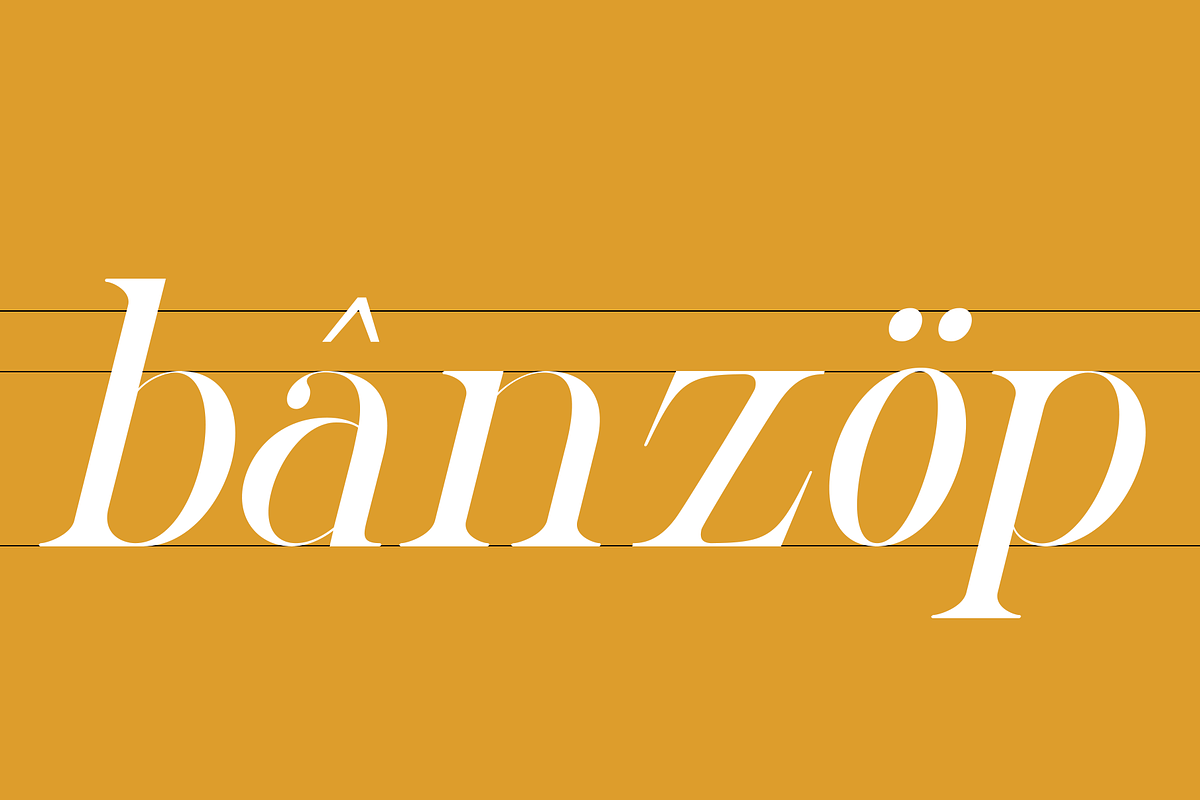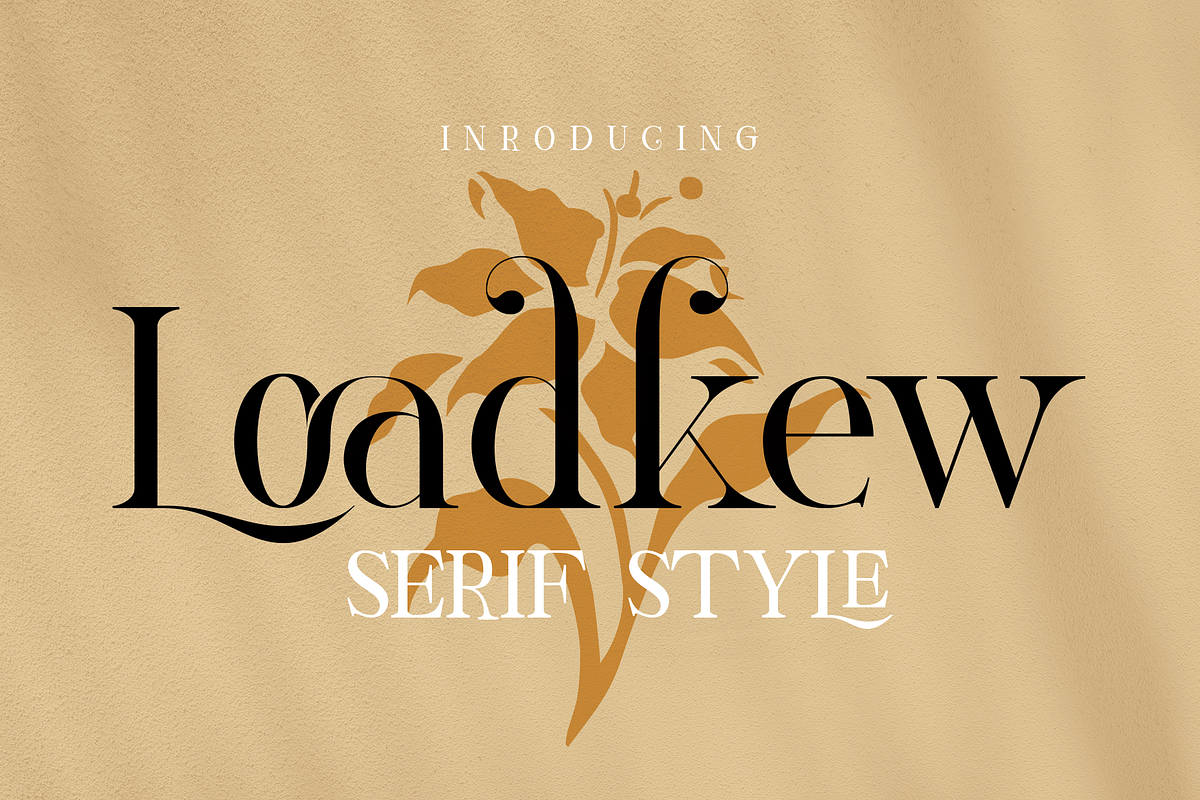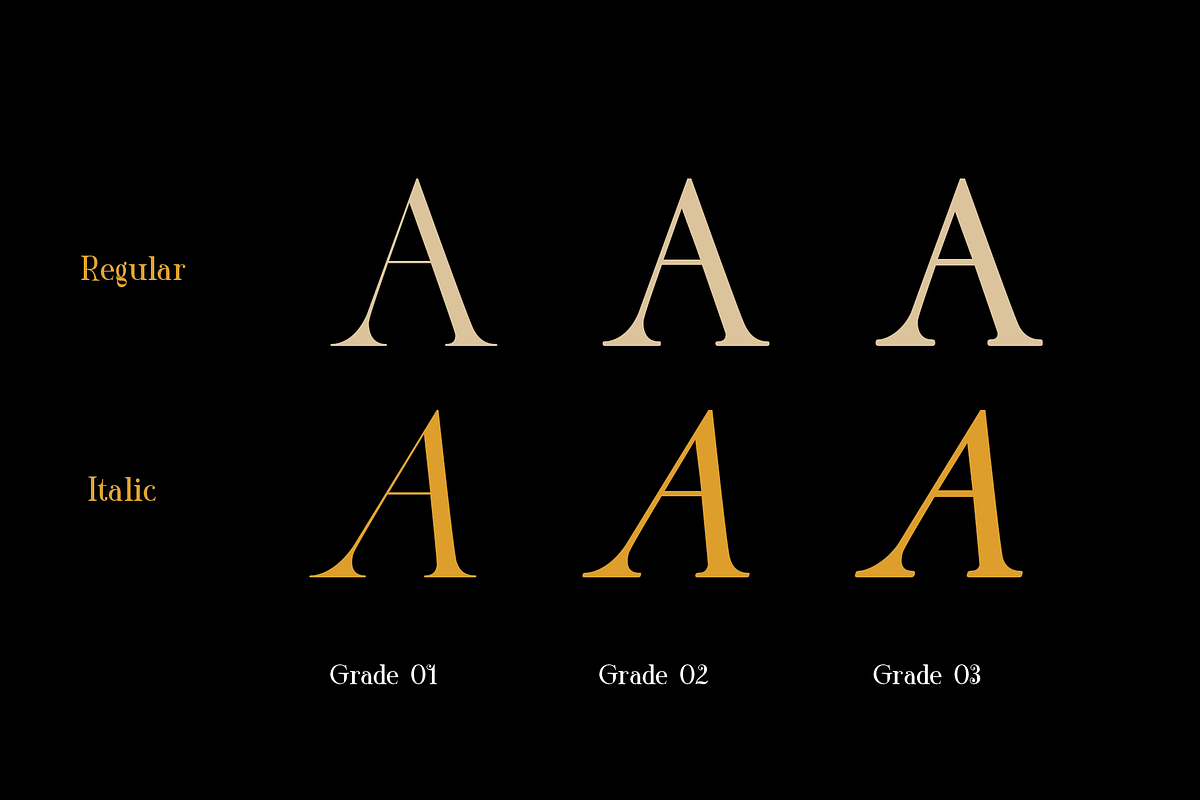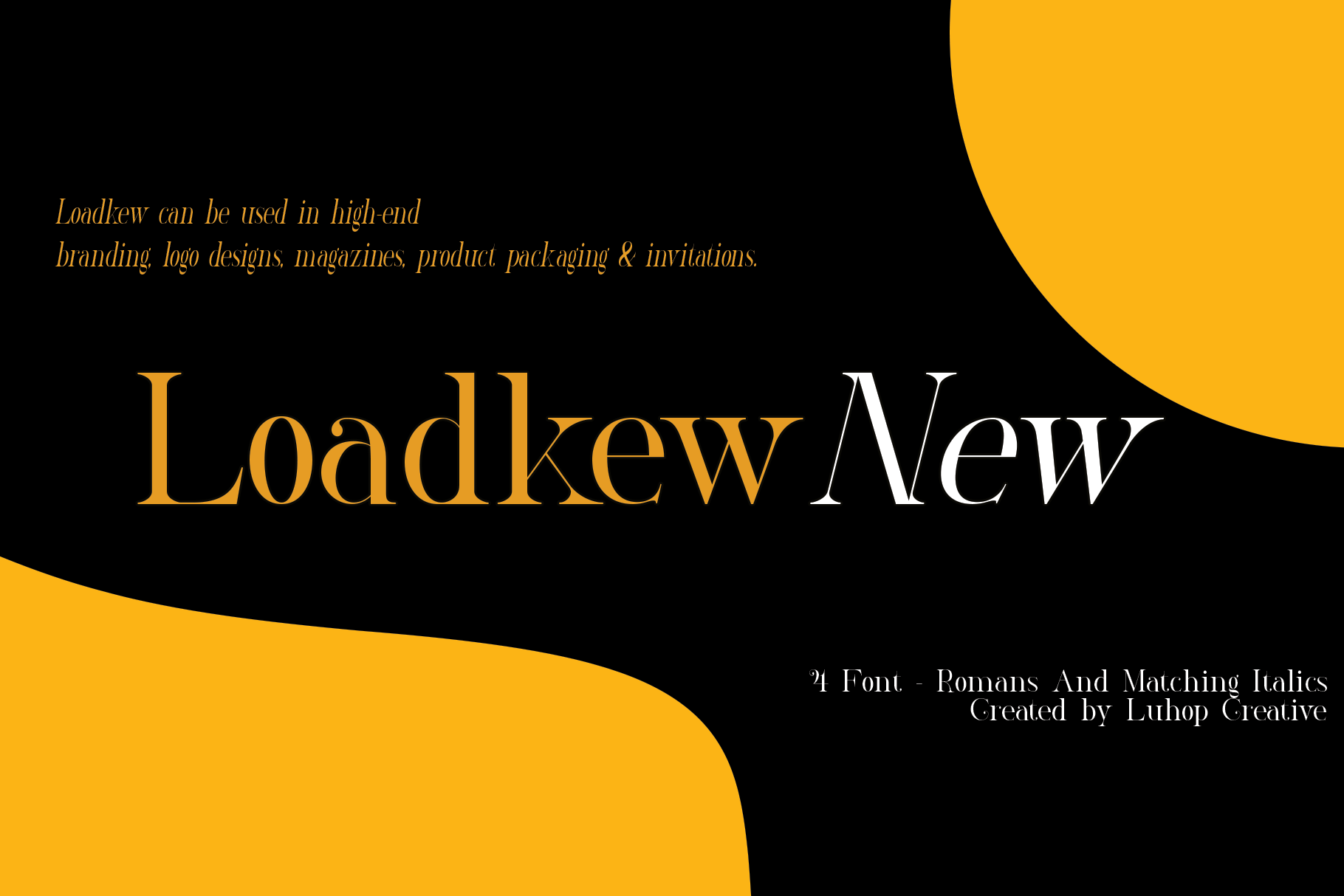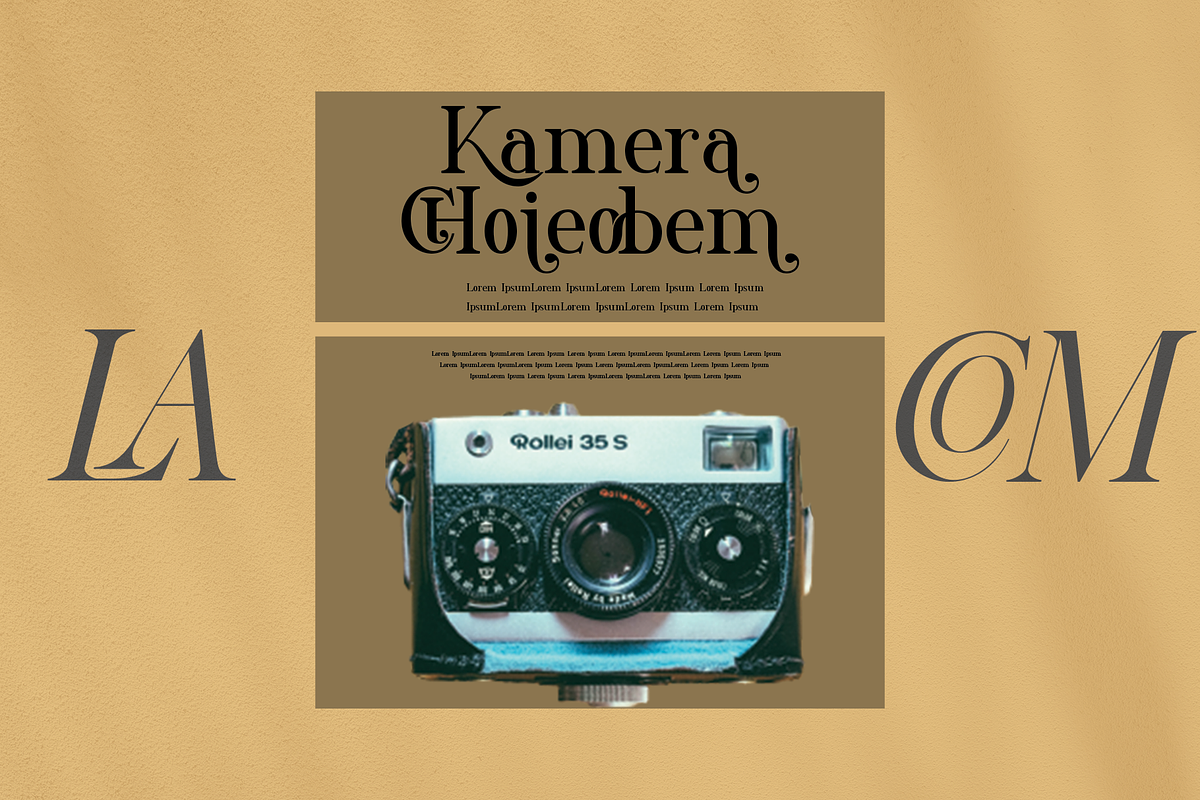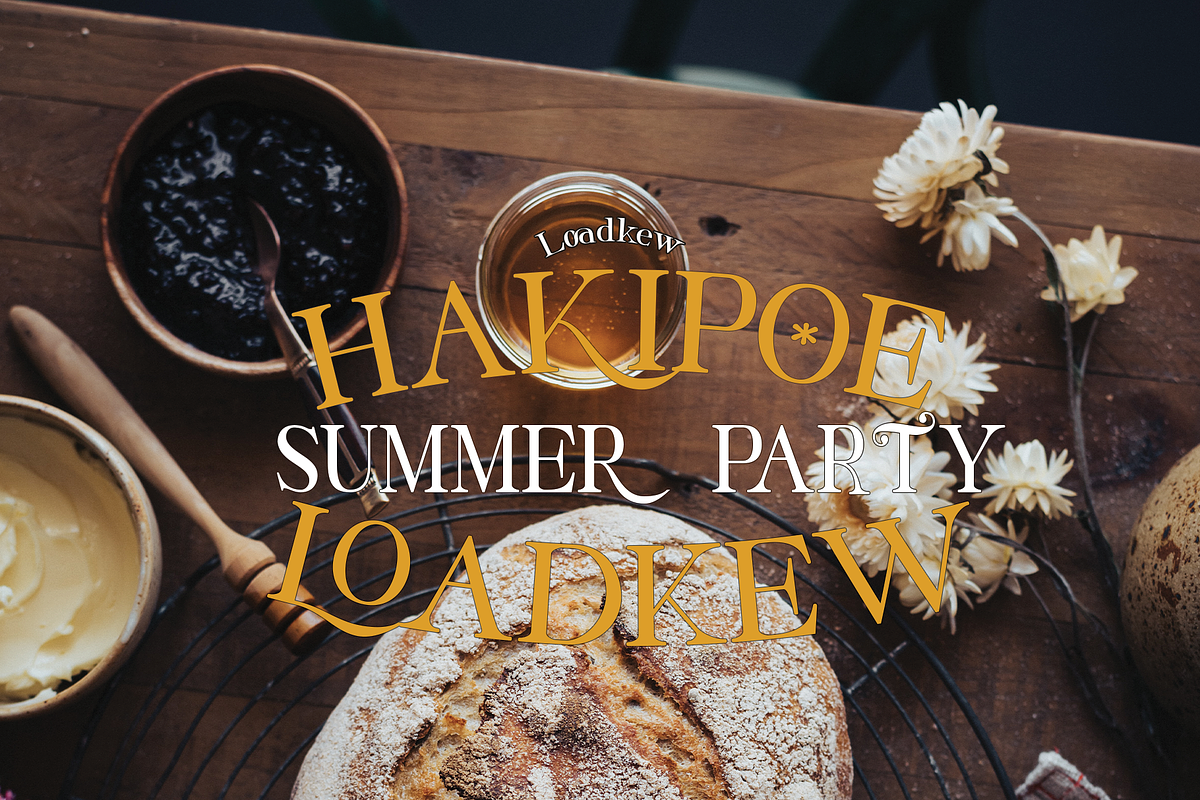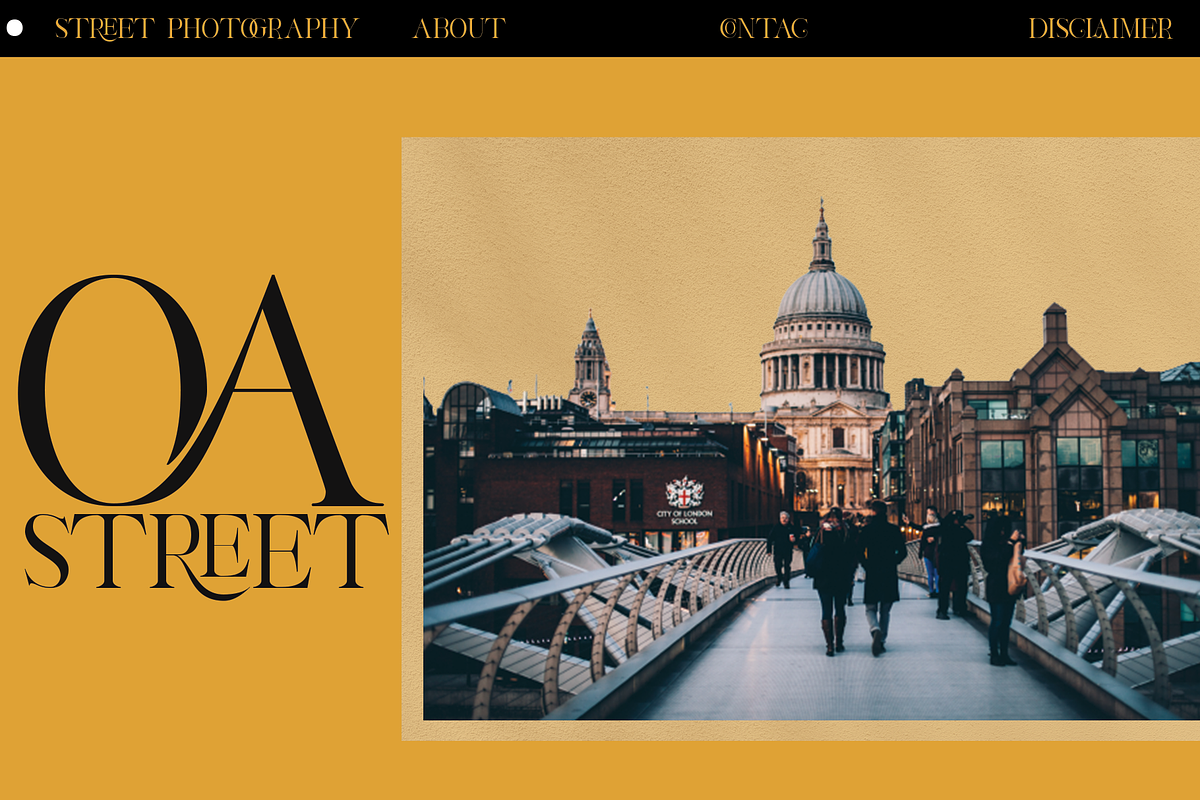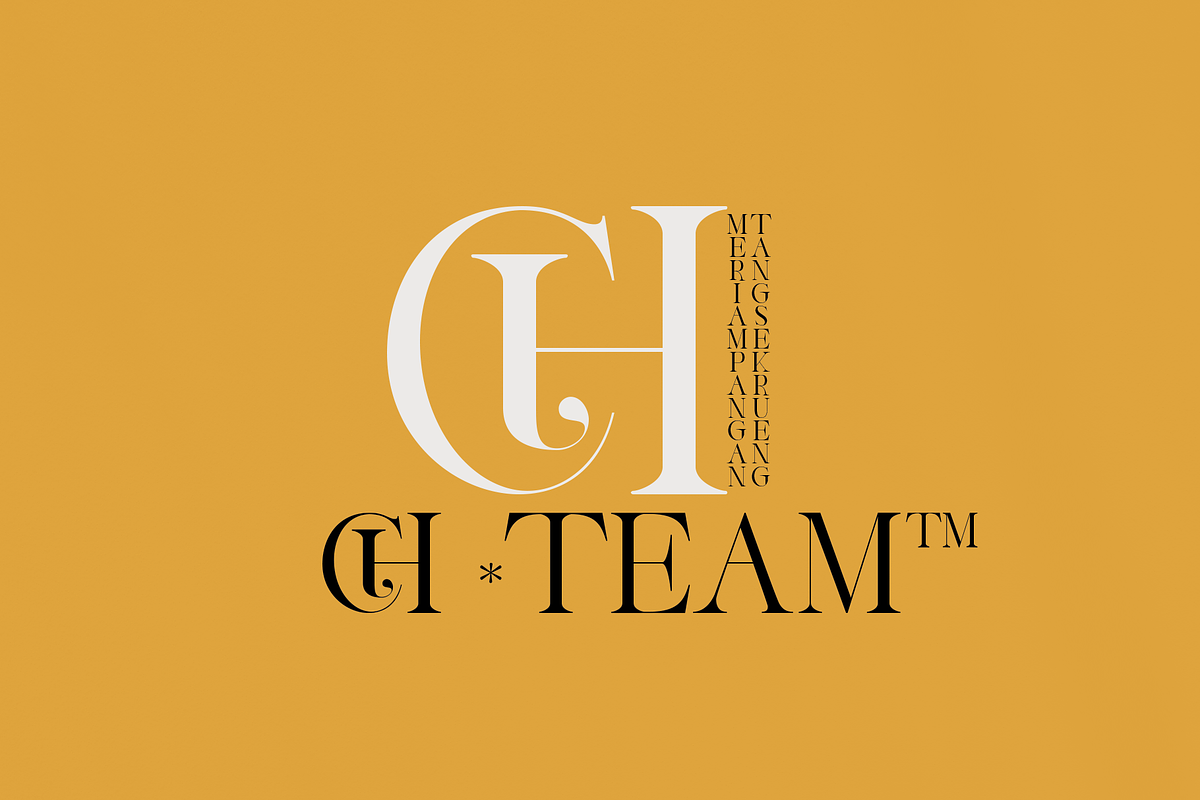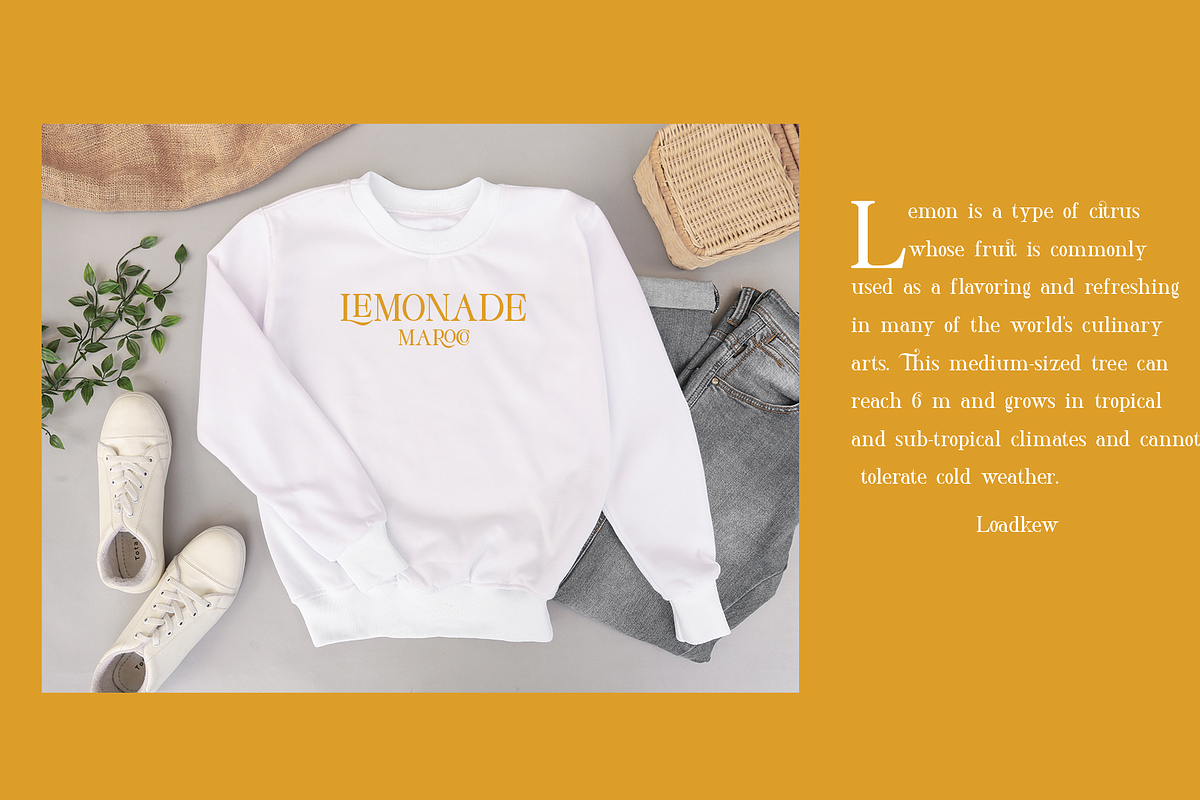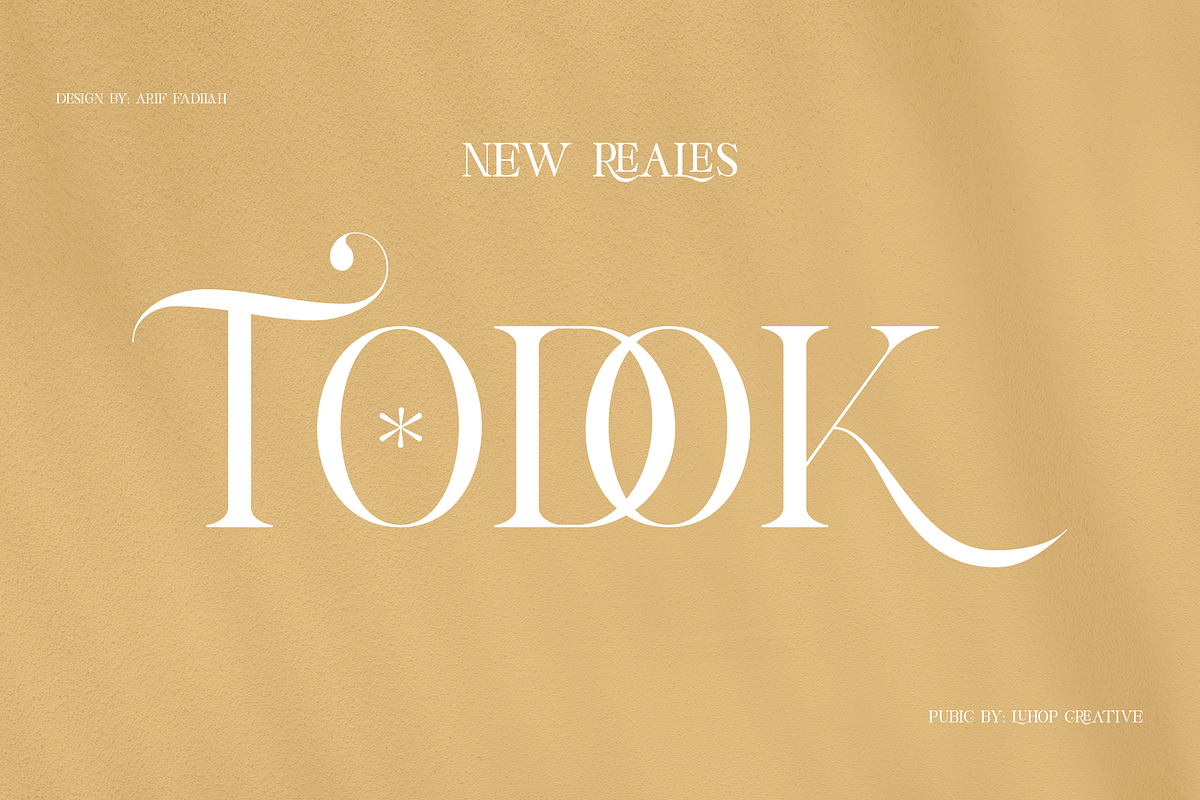
Loadkew Modern Serif Typeface
Loadkew is an elegant classic serif font family consisting of a high contrast serif fonts with a vintage chic look,
The handsome serif comes in 4 weights, Regular,Italic,Bold,and extra bold. are enhanced by OpenType features such as ligatures and stylistic alternates.
Loadkew can be used in high-end branding, logo designs, magazines, product packaging & invitations.